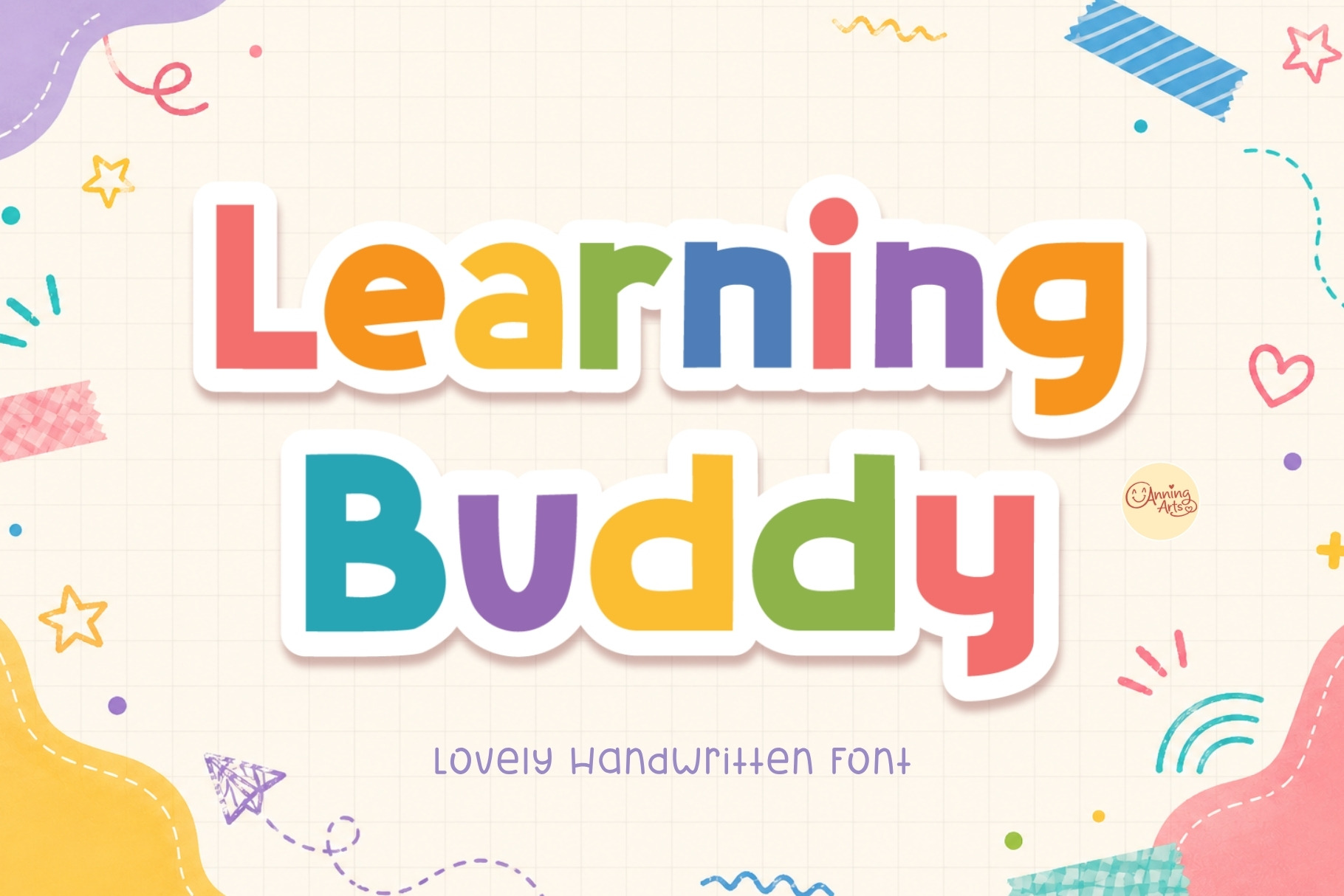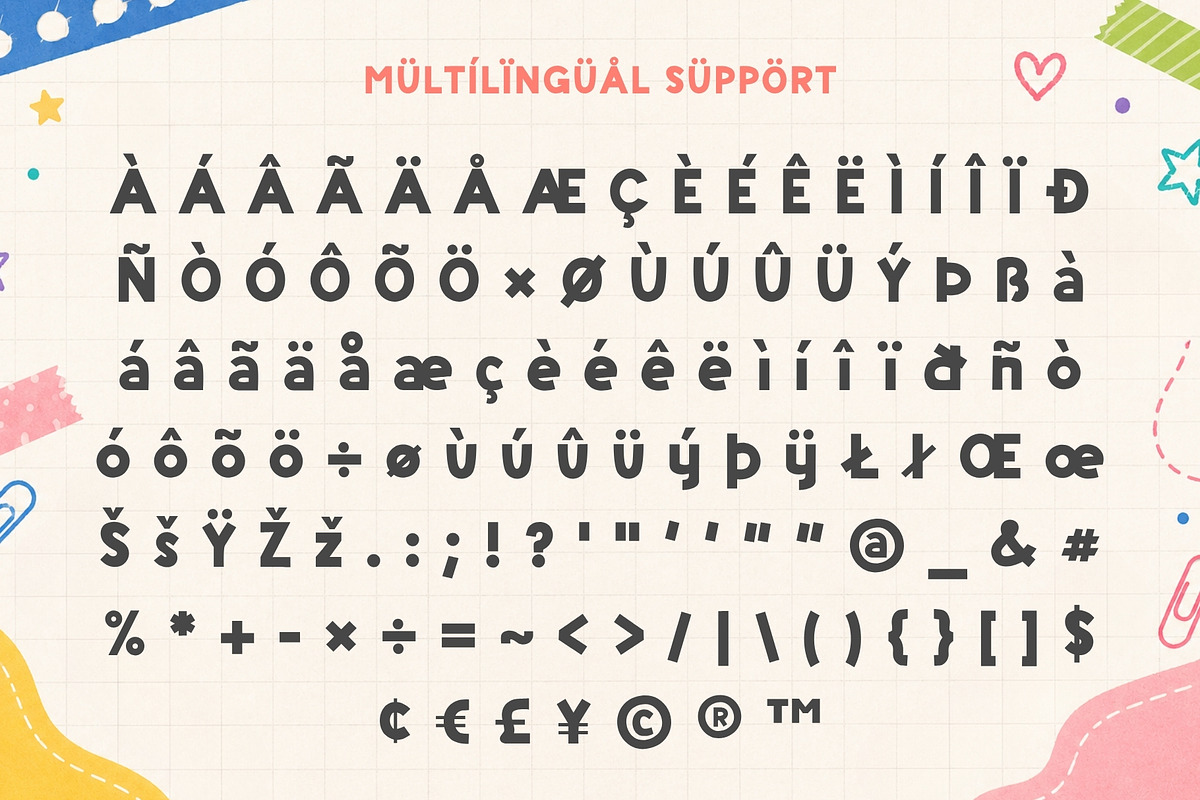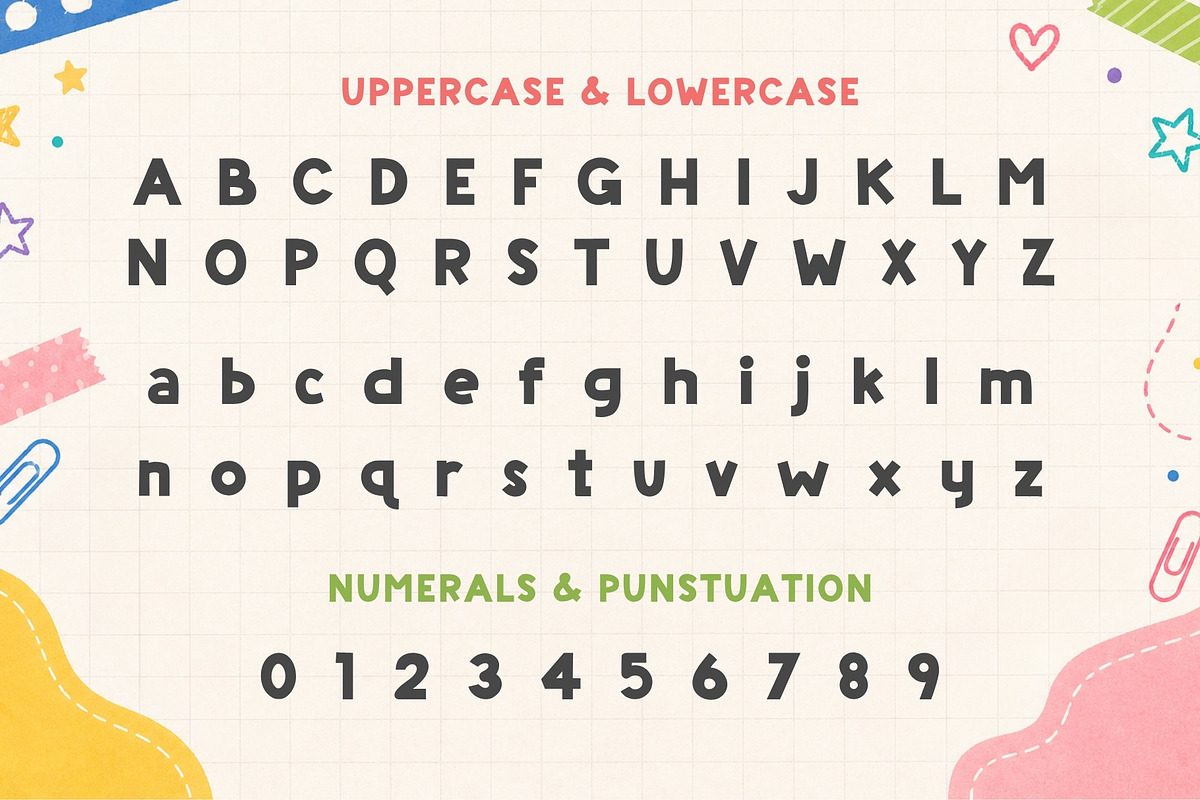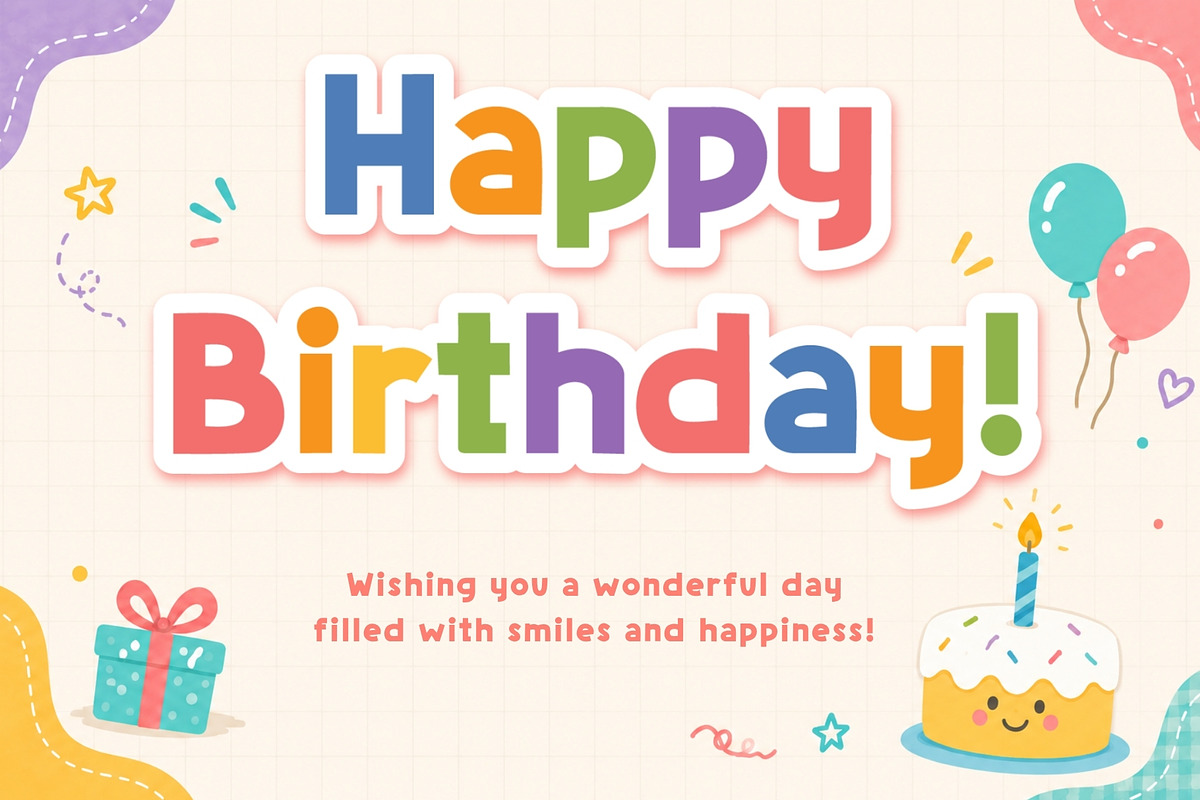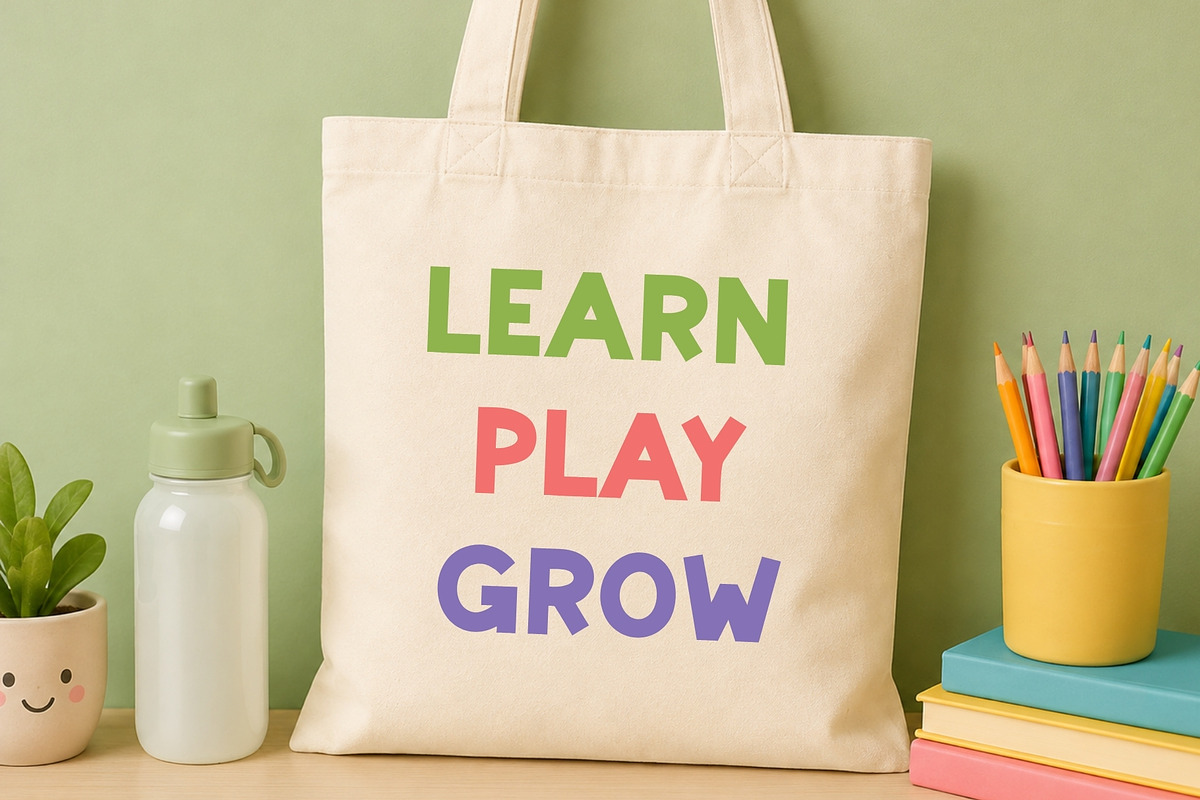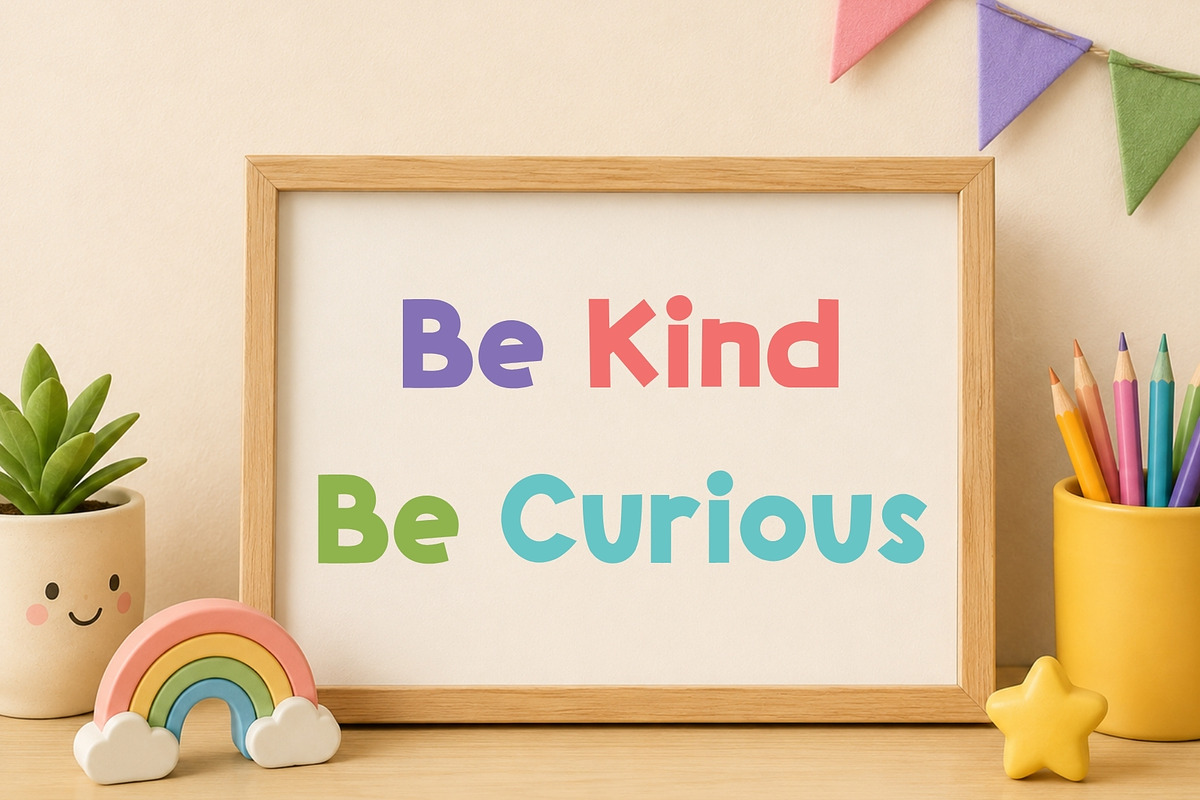
Learning Buddy - Handwritten Font
Learning Buddy is a cheerful display font designed to bring fun and creativity to children's projects. Featuring bold, rounded letterforms and a playful handwritten style, this font is easy to read while adding personality to every design.
Perfect for classroom decorations, worksheets, educational printables, preschool and kindergarten activities, children's books, flashcards, learning resources, birthday invitations, greeting cards, nursery decor, posters, logos, branding, social media graphics, Cricut crafts, sublimation, T-shirts, tote bags, stickers, and more.